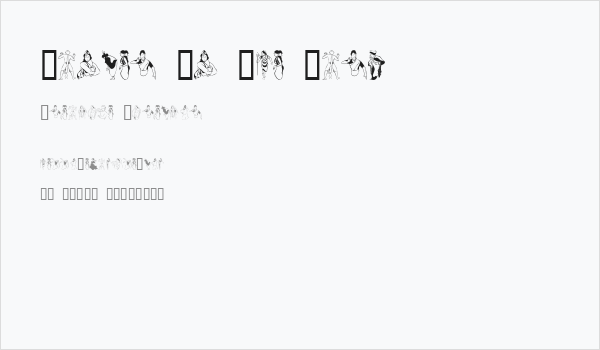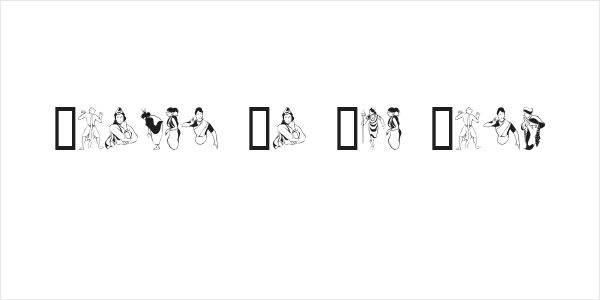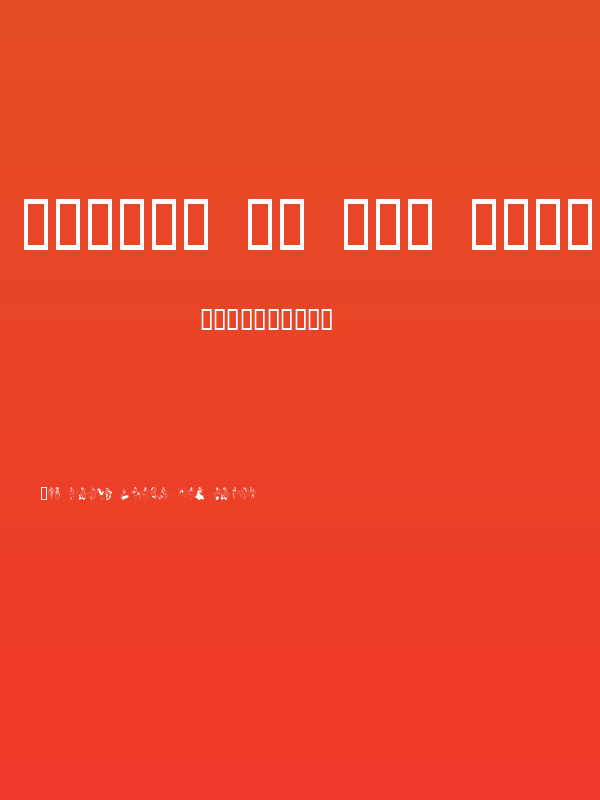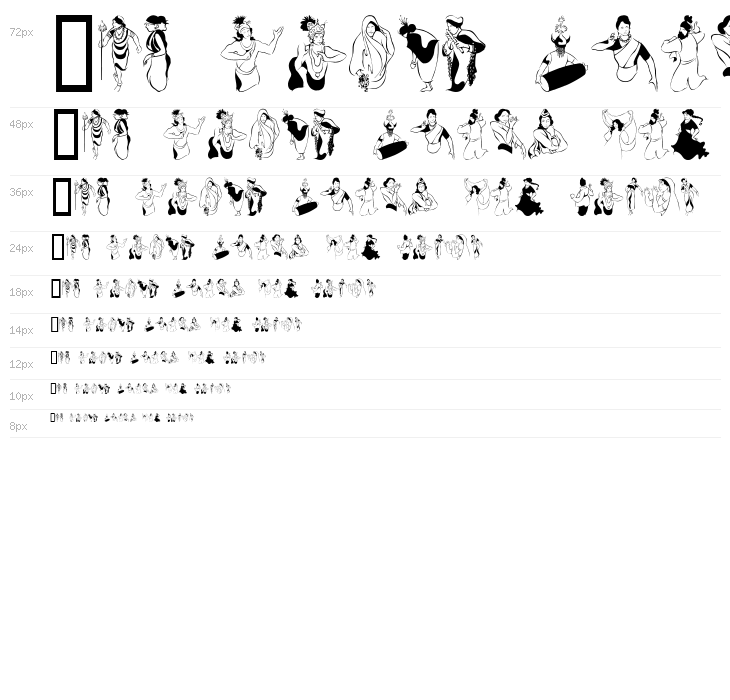
Dancer In The Dark Font
| Stile generale | Decorative, Artistic, Expressive |
| Caso d'uso | Logos, Headlines, Posters, Artistic titles |
| Progetti proposti | Posters, event invitations, branding for dance studios, artistic projects, album covers, cultural festival materials. |